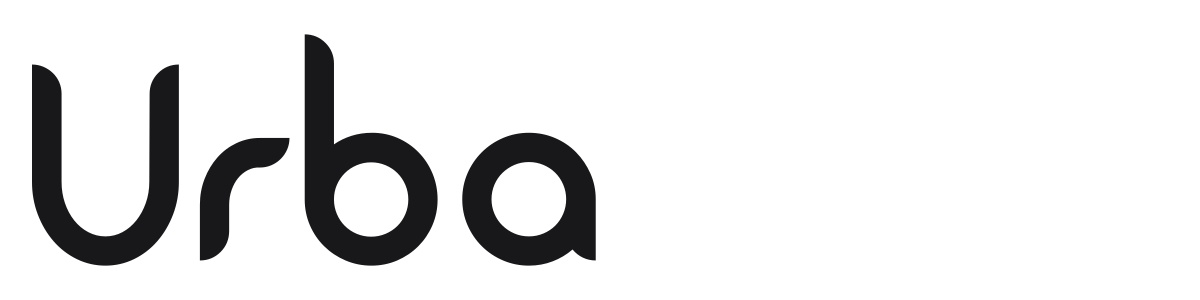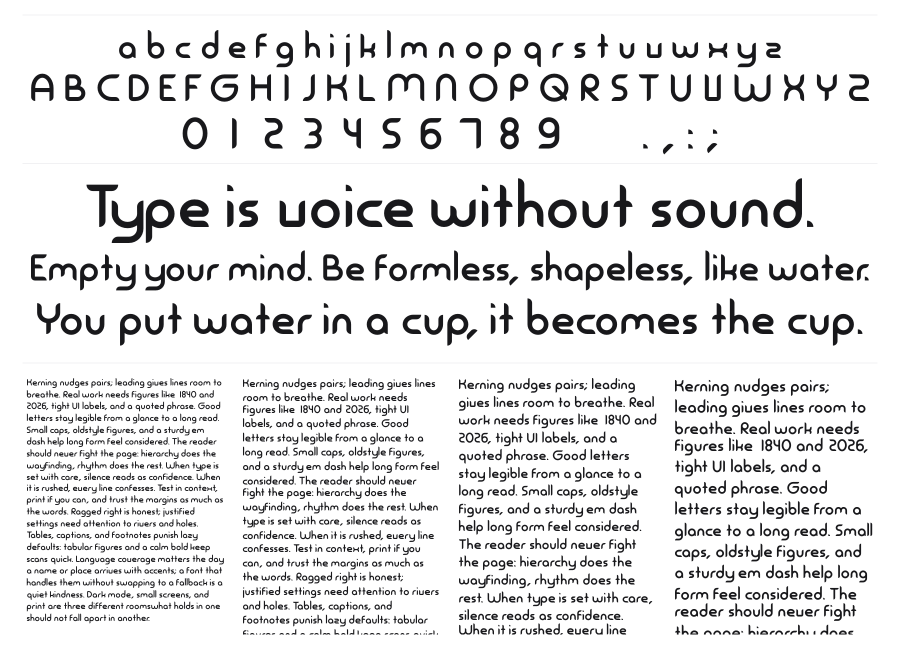
Urba
Urba is a bold, rounded geometric sans from Preston Racette with soft, clean letterforms that feel modern and approachable. The generous curves and even weight distribution give it a friendly warmth without sacrificing structure, making it a strong pick for headlines, branding, and UI where you want clarity with personality.